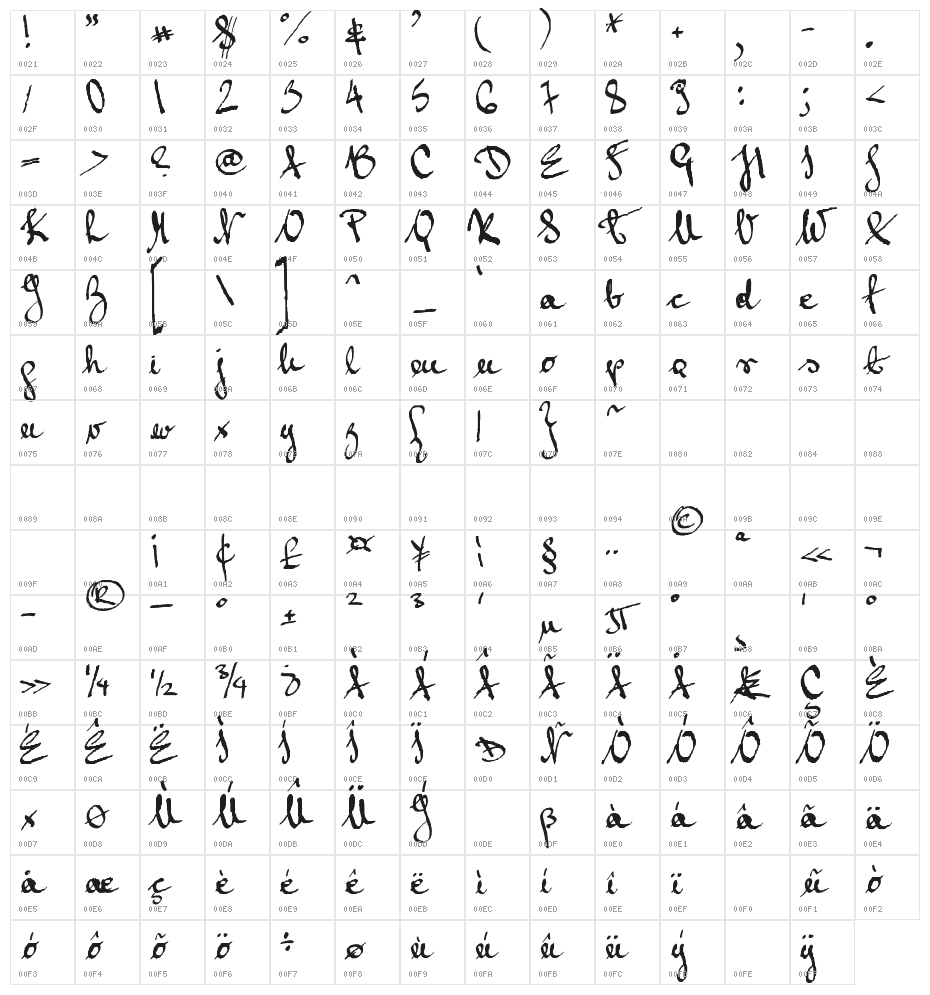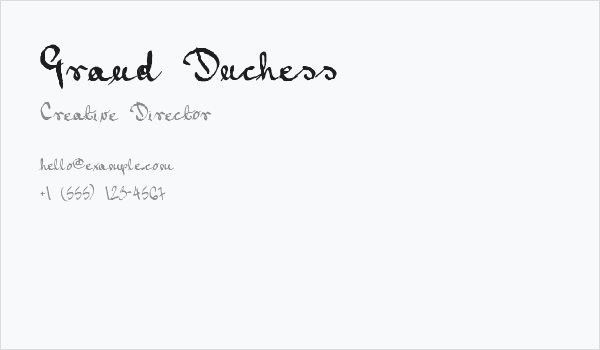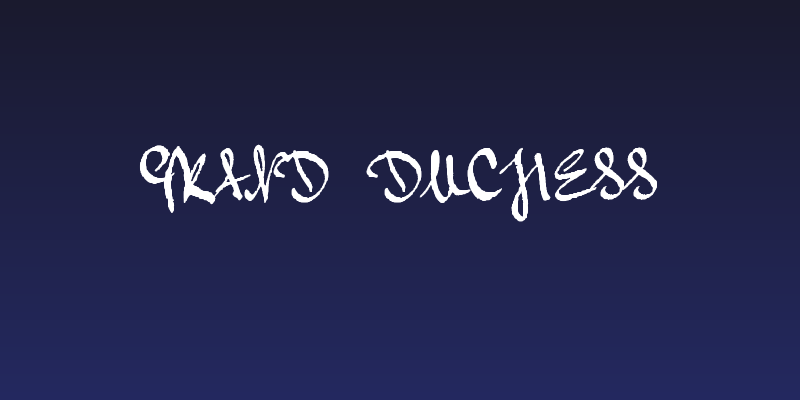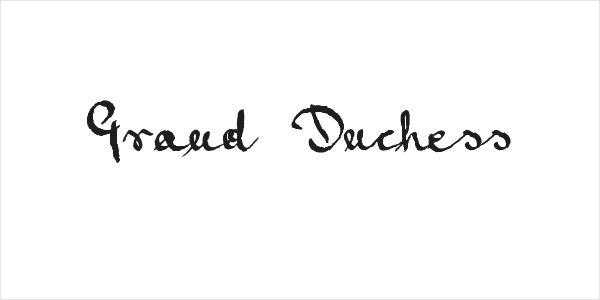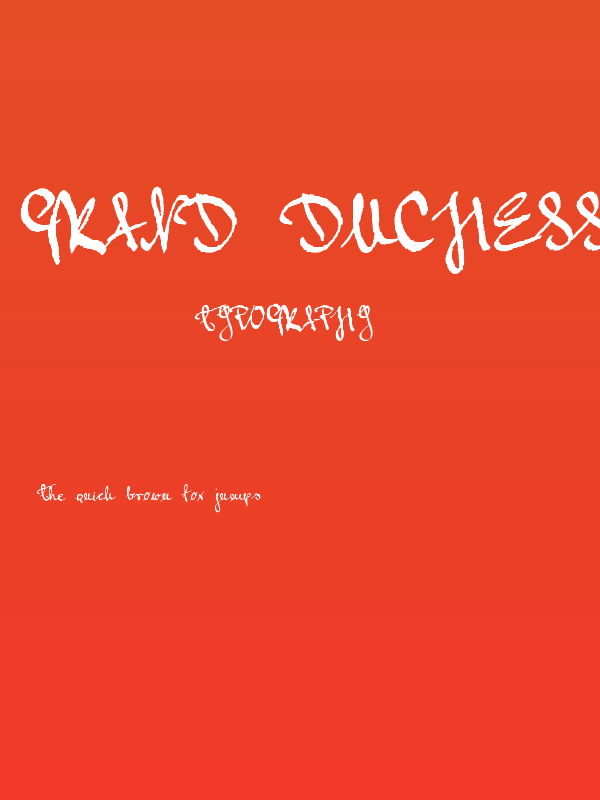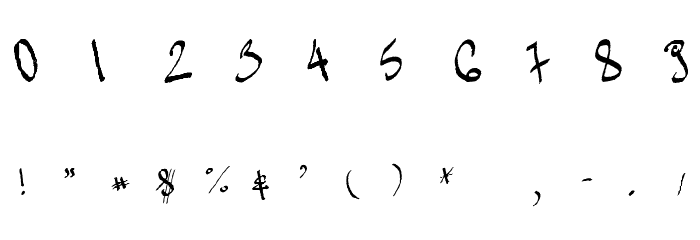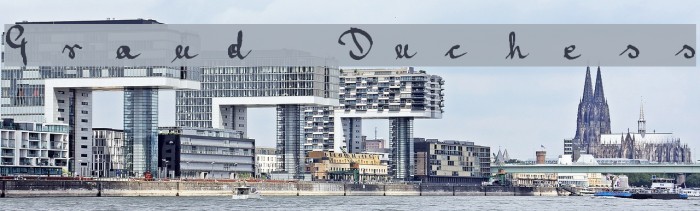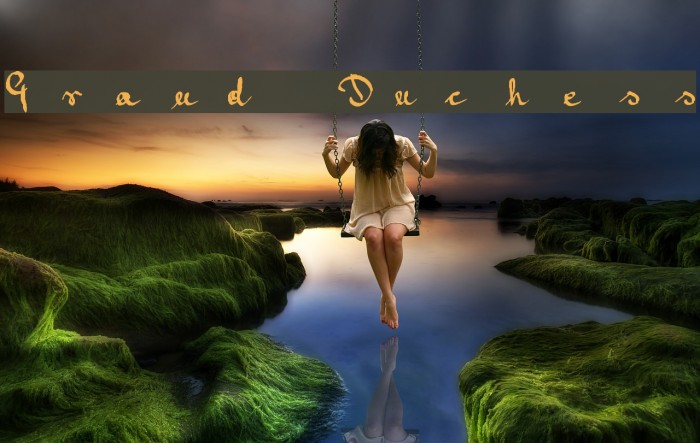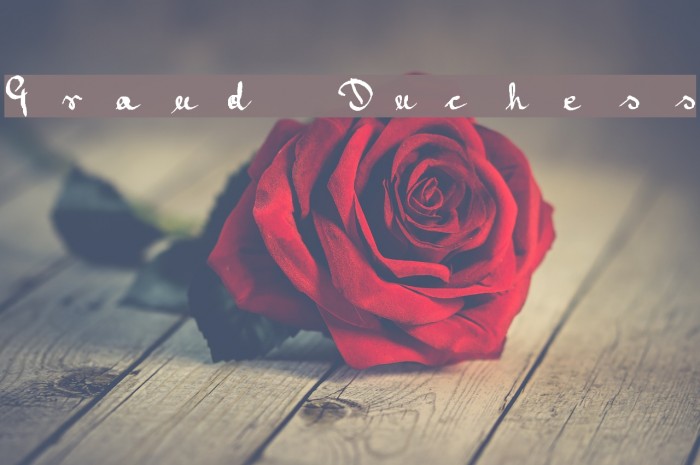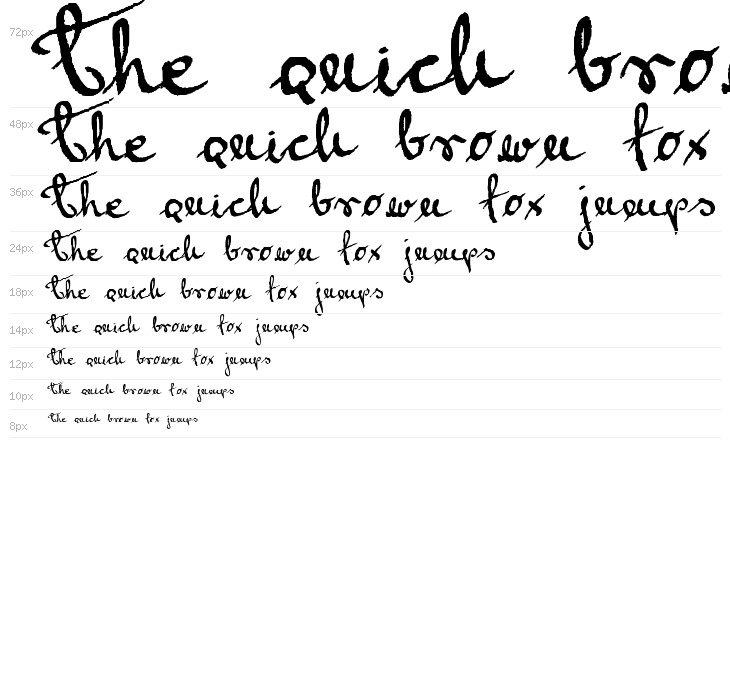
Grand Duchess Font
Grand Duchess Description
This font exudes a charming, handwritten style with a touch of elegance and sophistication. The characters are fluid and dynamic, featuring a mix of thick and thin strokes that create a sense of movement and grace. The uppercase letters are bold and distinctive, while the lowercase letters maintain a consistent flow, enhancing readability. The numbers and special characters are crafted with the same attention to detail, ensuring a cohesive look across all elements. This font's unique style makes it suitable for projects that require a personal touch or a sense of luxury.
| Overall Style | Elegant, Artistic |
| Proposed Projects | Ideal for wedding invitations, personal branding, luxury product packaging, and artistic projects. |